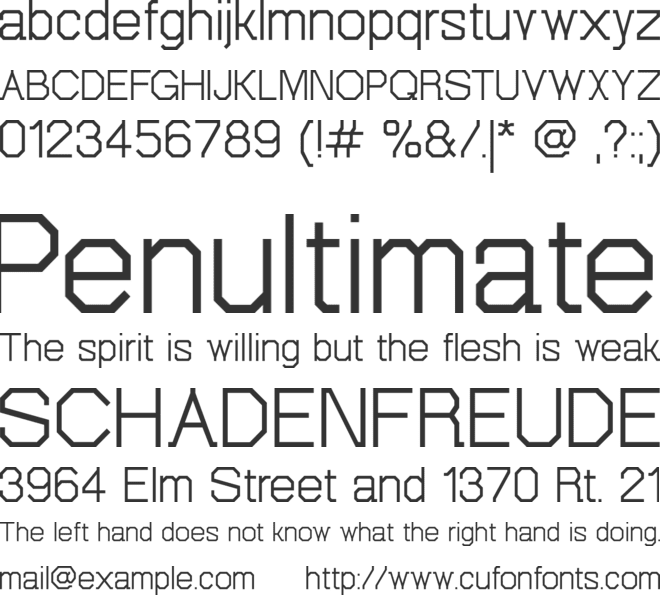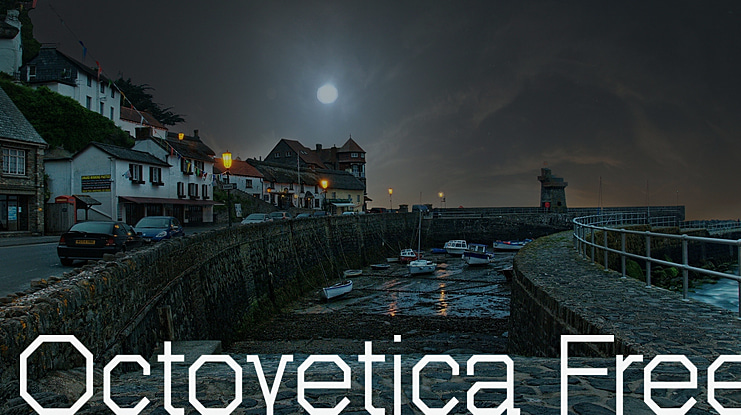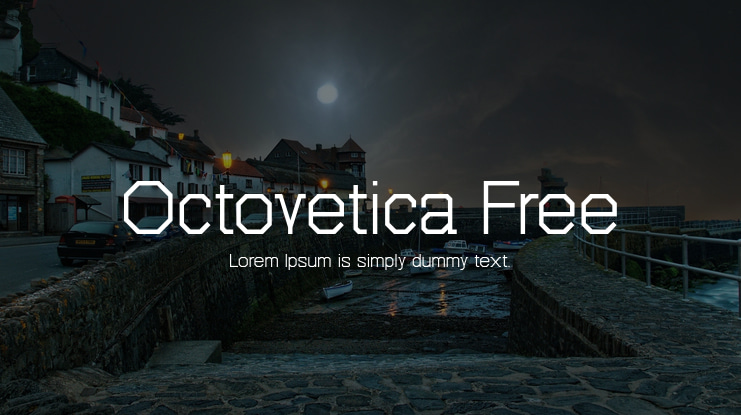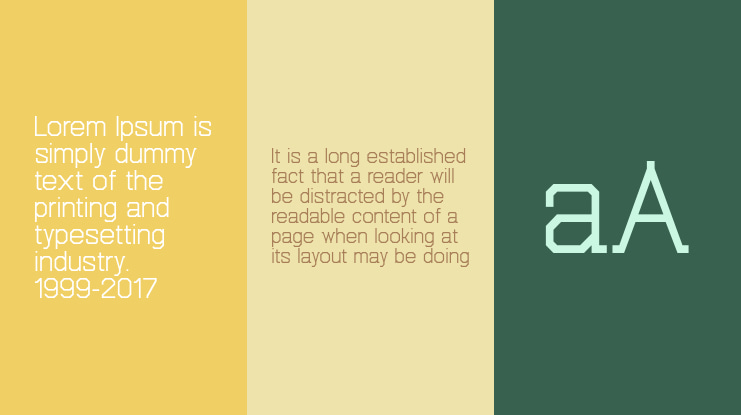
Octovetica started as an experimentations about a key aspect of computer typography : rasterization. Letters within a type are usually drawn with continuous linear shapes and curves. But to be shown on-screen, which only has small discreet squarred dots to built images with, the curves are rasterized, that is transformed into a series of dots that optically simulates the curves. So if you look closely at an Helvetica on a computer screen, you see a very different face, specifically calculated to cheat your eyes, making them believe it is an Helvetica. An impostor ! We found this paradox very stimulating, and created this Octovetica family that exploits this paradox the exact opposite way : it is a square-shaped type family, that has been specifically designed to looks curved when used on screen at small sizes : at large size it looks squarred, and at small size it gets curved ! And the great thing is that this "mutating" type ended up being a very modern and versatile type !
The v2.0 release of Octovetica includes 3 variants, fully accentuated and with all required diacritics, signs, and more than 500 kerning pairs. Enjoy !